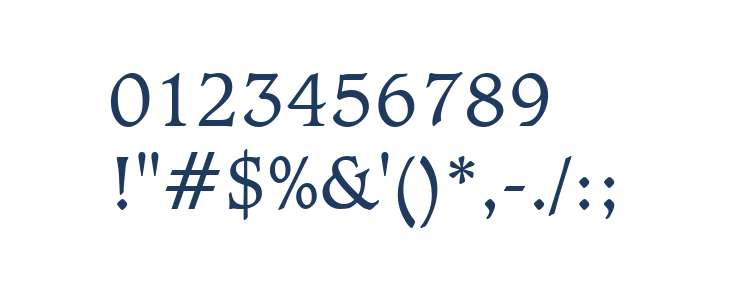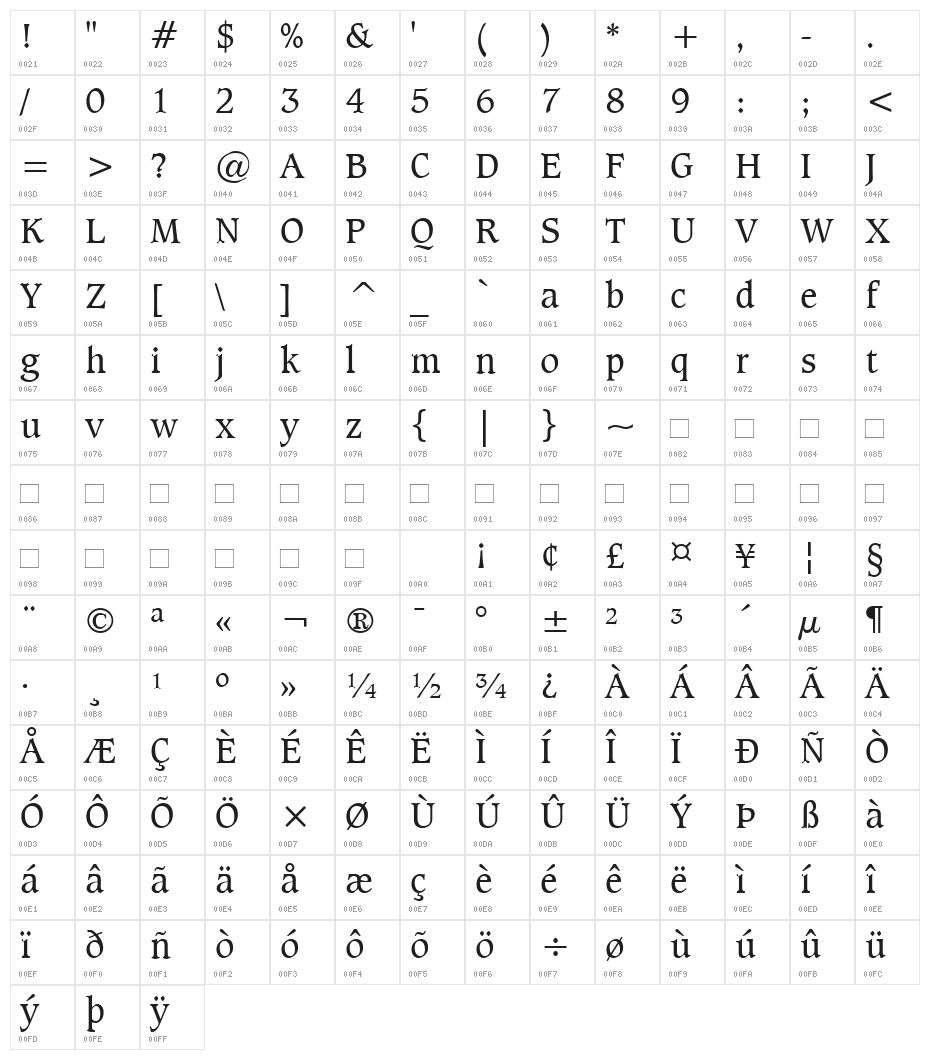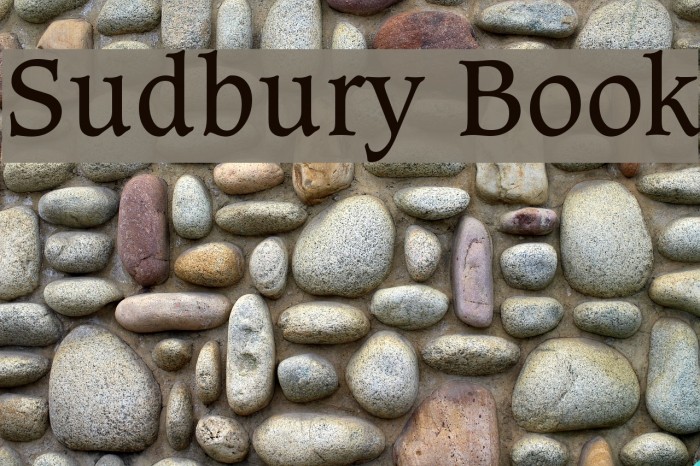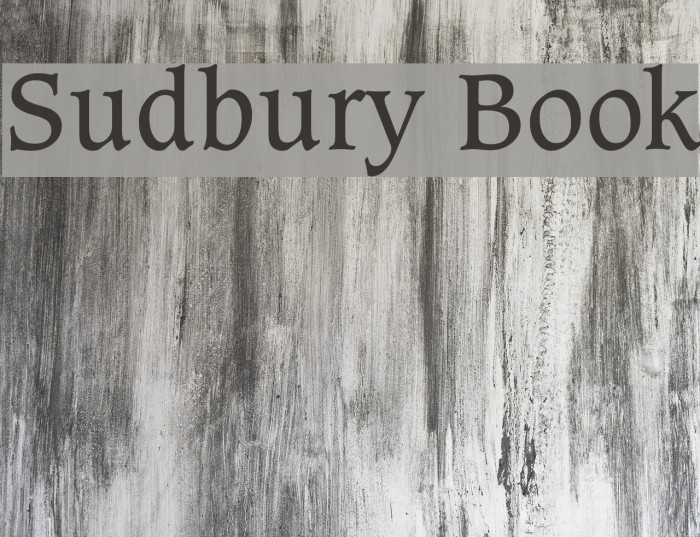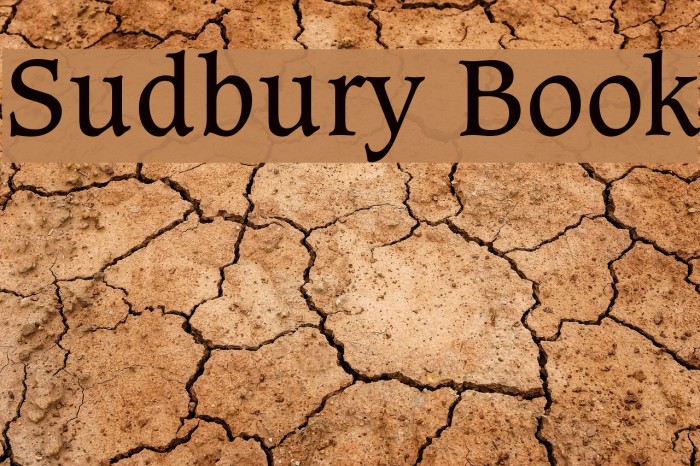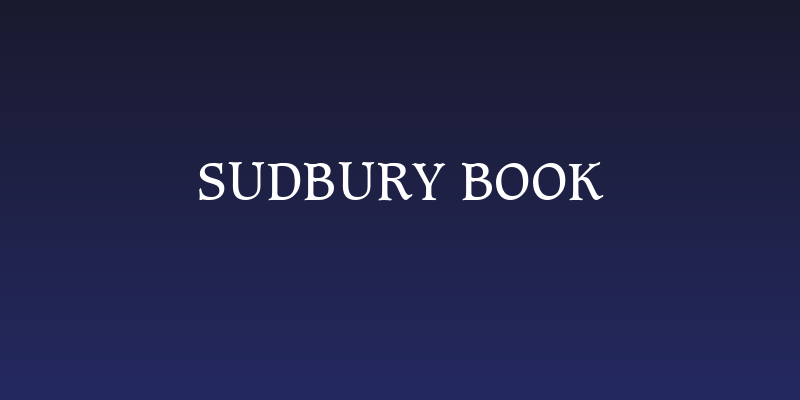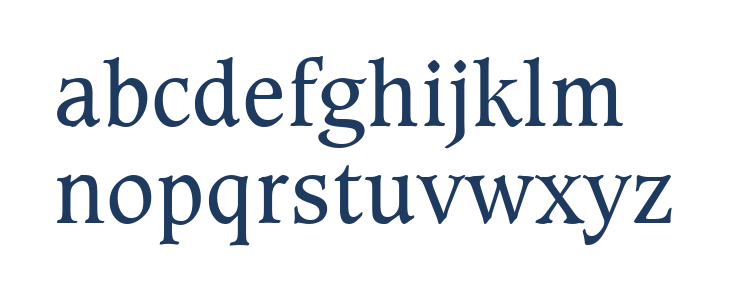
Sudbury Book Font
Sudbury Book Description
This font features a classic serif style with elegant and refined strokes. The characters are well-proportioned, with a slight contrast between thick and thin lines, giving it a sophisticated appearance. The serifs are pronounced, adding a touch of tradition and formality. The uppercase letters are stately and commanding, while the lowercase letters maintain a smooth and flowing form. The numerals are clear and distinct, ensuring readability. Special characters are designed with the same attention to detail, making them harmonious with the rest of the typeface.